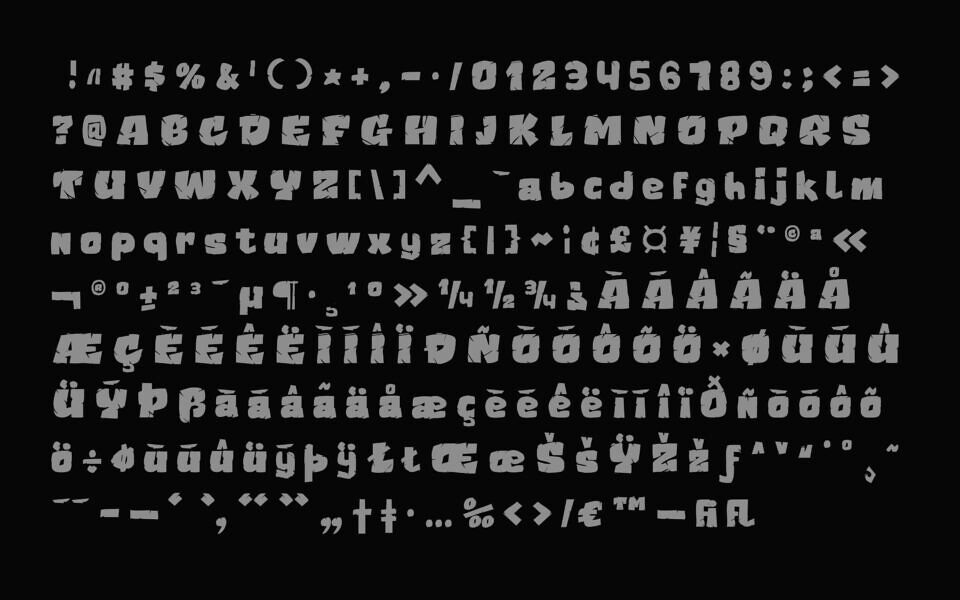
The Rockers Font
The Rockers is a bold display font with a rebellious rock-inspired style and energetic letterforms. Its sharp edges and handcrafted look make it perfect for band logos, posters, album covers, streetwear, gaming graphics, and edgy branding projects. The font captures a loud retro-rock attitude while remaining highly eye-catching and expressive for modern creative designs.